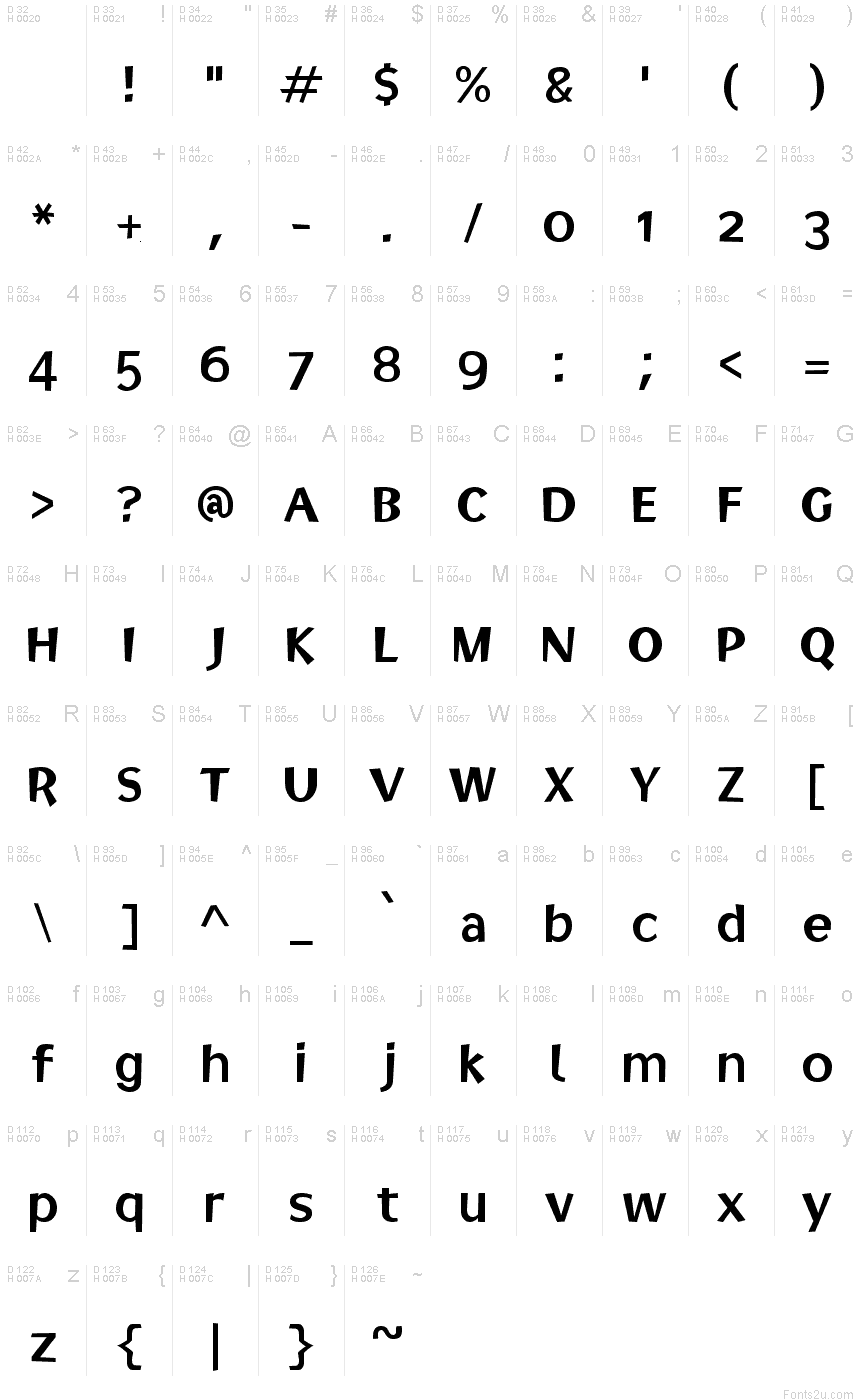
Elected Office
Elected Office font by Tepid Monkey Fonts is a free bold sans serif typeface with the weight and presence of a campaign placard. Thick, steady strokes and tightly marshaled spacing give every word a sense of conviction, while the slightly softened corners keep it from feeling harsh or shouty. It reads as strong and straightforward—like a headline hammered onto a posterboard with fresh ink.
Using Elected Office, you can anchor political yard signs, ballot initiative branding, advocacy posters, debate-night graphics, civic event flyers, and bold social media announcements with one consistent voice. This free font holds up at a distance, making short slogans and candidate names hit hard in just a few words. For supporting copy, pair it with a simple light-weight sans serif to keep the message clear and the hierarchy unmistakable.